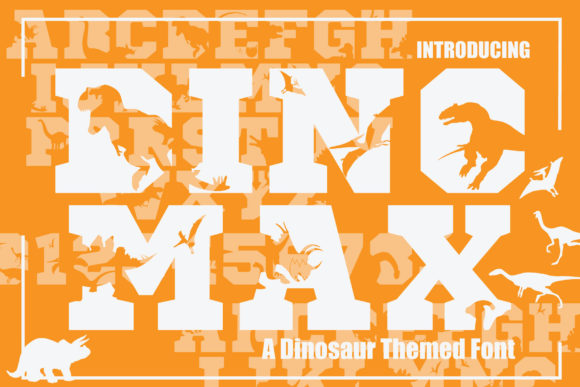
Introducing Dinomax Font: The Ultimate Choice for Fun and Playful Designs
Are you tired of using the same old fonts for your designs? Do you want to add a touch of playfulness and authenticity to your projects? Look no further than Dinomax Font! This cool and fun looking decorative font is perfect for any children activity or school project, and is sure to make your designs come alive.
What is Dinomax Font?
Dinomax Font is a chunky lettered font that embodies playfulness and authenticity. Its unique and fun design makes it perfect for a variety of projects, from children’s activity sheets to school posters and presentations. With Dinomax Font, you can add a touch of personality to your designs and make them stand out from the crowd.
Why Choose Dinomax Font?
So why choose Dinomax Font for your designs? Here are just a few reasons:
- Playfulness: Dinomax Font is the perfect choice for any project that requires a playful touch. Its fun and chunky design makes it ideal for children’s activity sheets, school posters, and other projects that require a youthful and energetic feel.
- Authenticity: Dinomax Font has a unique and authentic design that will make your projects stand out from the crowd. Its bold and chunky letters are sure to grab attention and add a touch of personality to your designs.
- Versatility: Dinomax Font is versatile and can be used for a variety of projects, from digital designs to print projects. Its clear and readable design makes it perfect for use in titles, headings, and body text.
How to Use Dinomax Font
Using Dinomax Font is easy! Here are a few tips to get you started:
- Pair it with other fonts: Dinomax Font pairs well with other fonts, such as sans-serif fonts like Arial or Helvetica. Try pairing it with a bold font for headings and a clean font for body text.
- Use it for titles and headings: Dinomax Font is perfect for use in titles and headings. Its bold and chunky design makes it easy to read and adds a touch of personality to your designs.
- Experiment with colors: Dinomax Font looks great in a variety of colors. Try experimenting with different colors to find the one that works best for your design.
Design Ideas Using Dinomax Font
- Children’s activity sheets: Dinomax Font is perfect for children’s activity sheets, such as coloring pages, word searches, and puzzles.
- School posters: Dinomax Font is great for school posters, such as posters for science fairs, book fairs, and other school events.
- DIY craft projects: Dinomax Font is perfect for DIY craft projects, such as making signs, banners, and other decorative items.
In conclusion, Dinomax Font is a cool and fun looking decorative font that embodies playfulness and authenticity. Its unique and chunky design makes it perfect for a variety of projects, from children’s activity sheets to school posters and presentations. With Dinomax Font, you can add a touch of personality to your designs and make them stand out from the crowd. So why not give it a try and see how it can bring your designs to life?